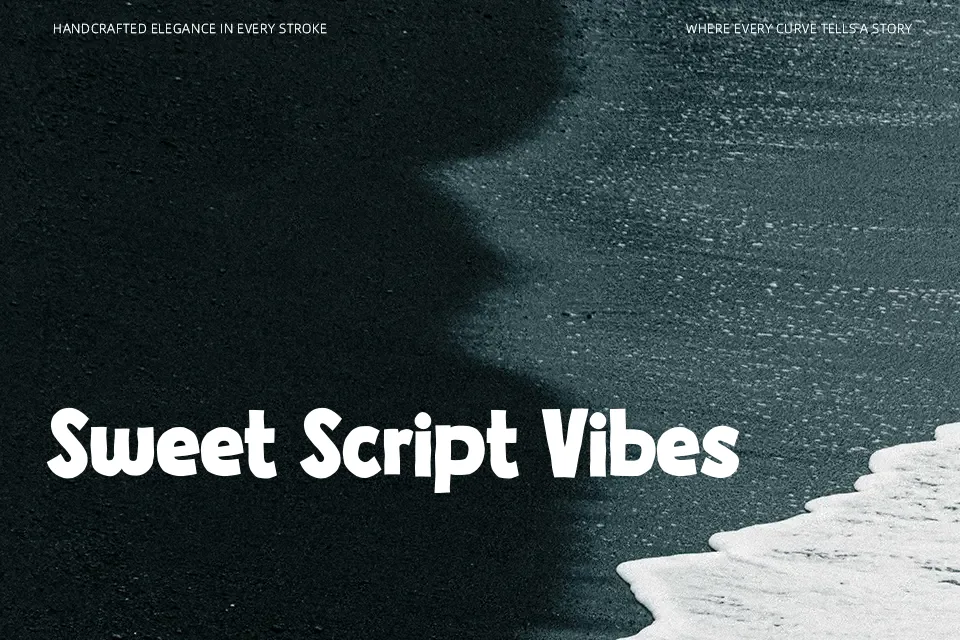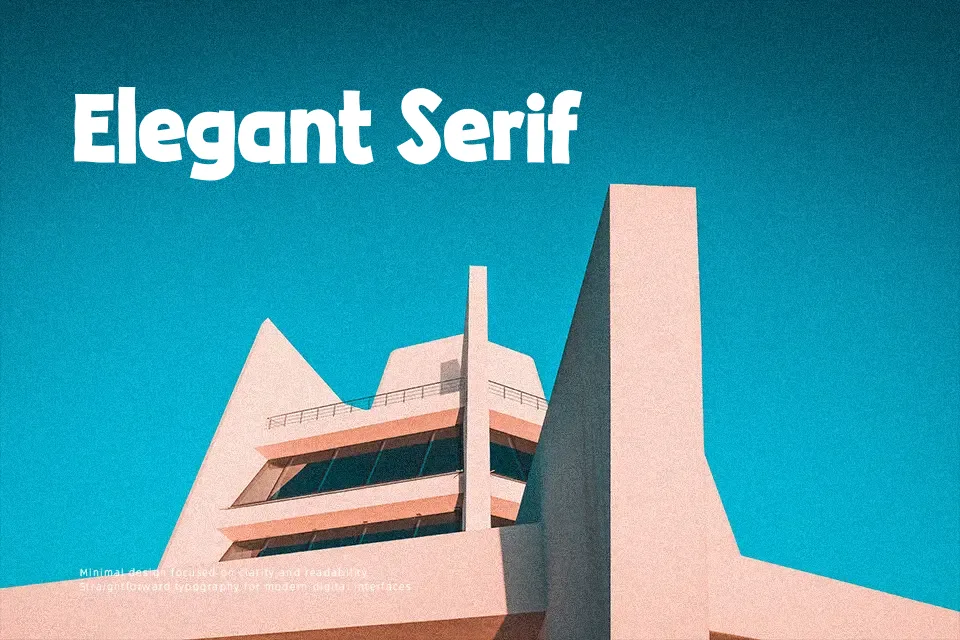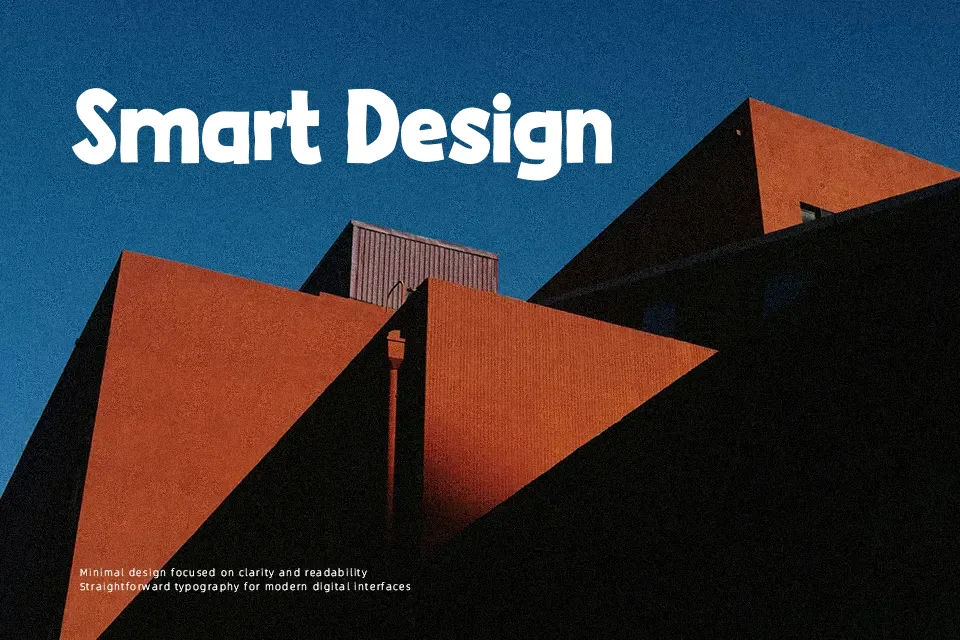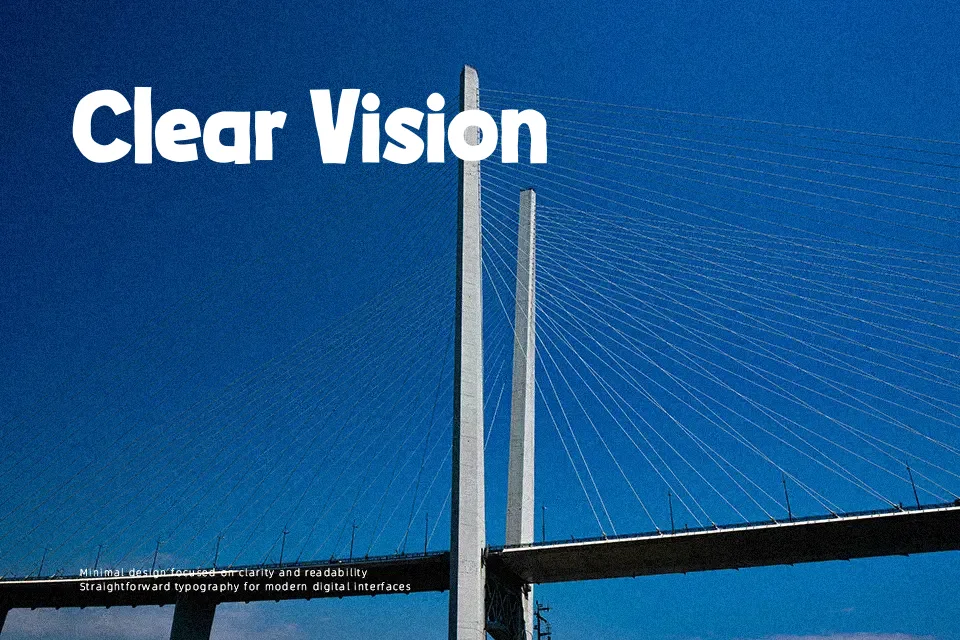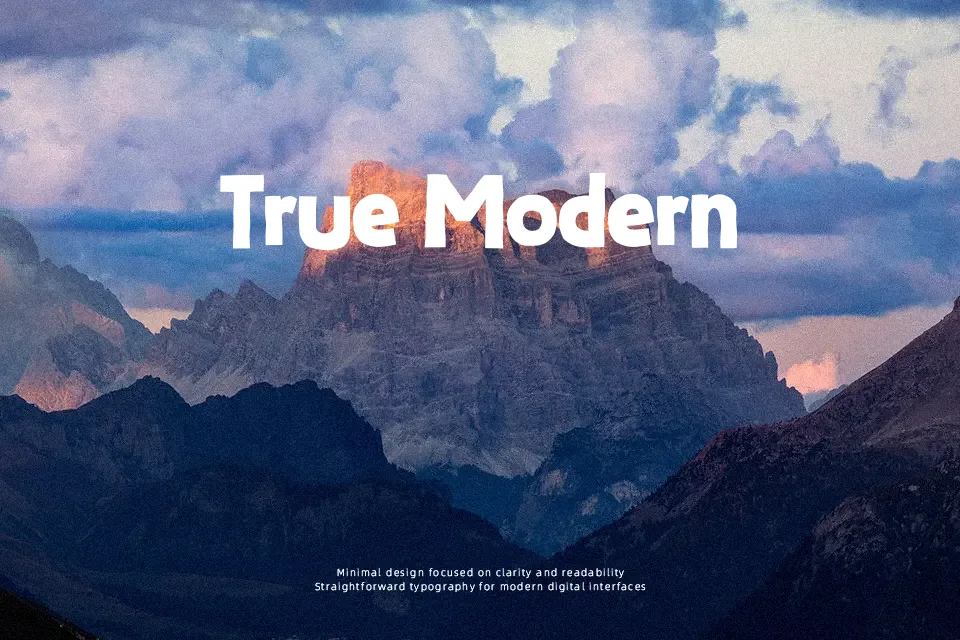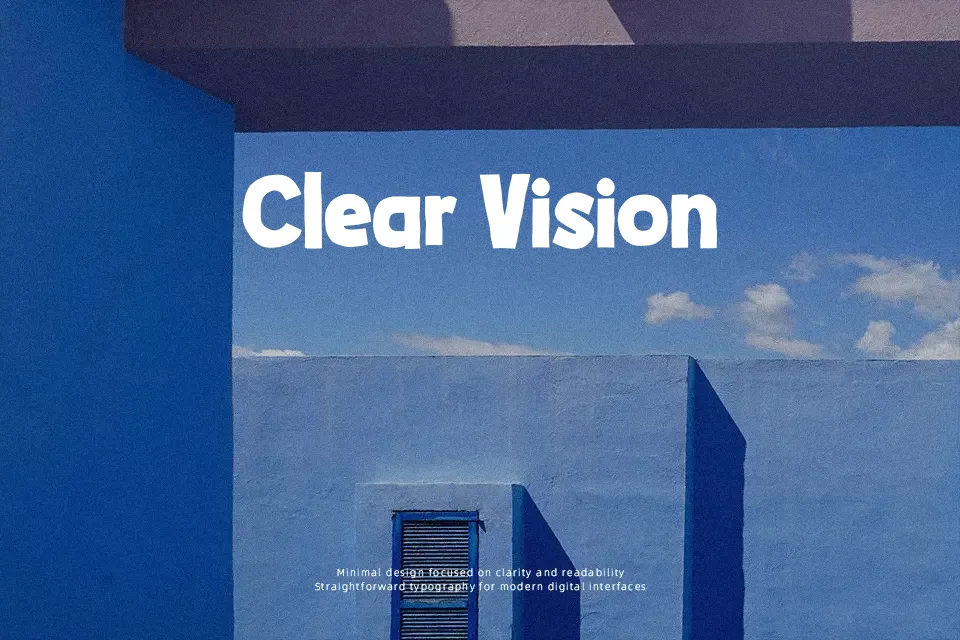
Chemicalife Font
Chemicalife Font delivers an organic, hand-rendered aesthetic characterized by slightly uneven stroke contours, solid letter weights, and rounded terminal details reminiscent of classic manual printmaking. The letterforms display balanced internal spacing with moderate width proportions, allowing titling compositions to feel cohesive and engaging across medium to large scales. While the textured edges provide rich character in merchandise designs, food labels, and display banners, dense forms reduce comfort during extended reading. Practical evaluations indicate that the typeface excels when given generous leading in prominent headline roles, though small body text layouts quickly lose clarity due to the heavy, handcrafted geometry.
Best For: vintage poster headlines, craft beverage packaging, retro apparel graphics, cafe menu headers
Not Ideal For: long paragraph text, mobile user interfaces, legal documentation, dense editorial body copy